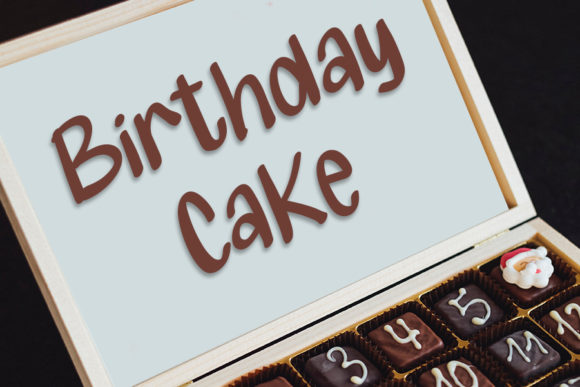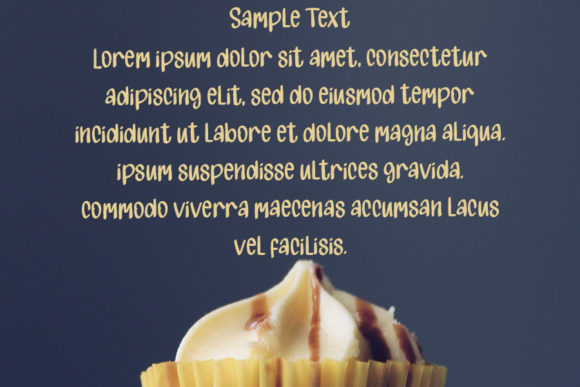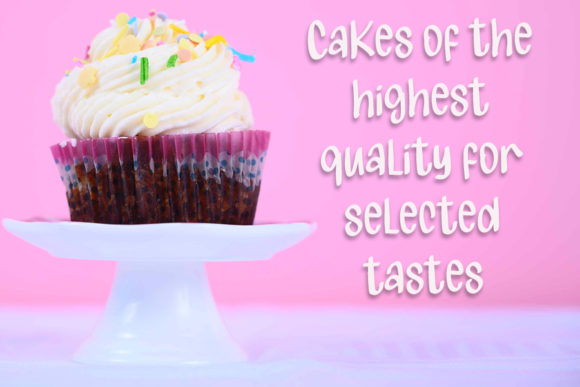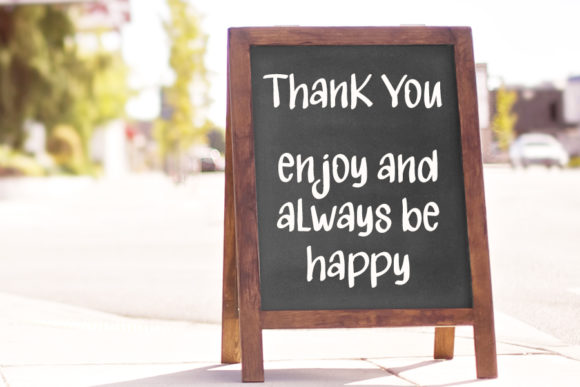
Introduction to King Cake Font
Have you ever stumbled upon a design that transports you to a magical world, making you feel like you’re sipping coffee in a quaint French bakery? That’s exactly the kind of creative moment that the King Cake Font is designed to evoke. This smooth handwritten font is handcrafted to add an authentic feel to your crafts and projects.
As a designer, you’re constantly on the lookout for high-quality design resources that can elevate your work and set it apart from the crowd. The King Cake Font is one such treasure trove, offering a unique and stylish look that’s perfect for T-shirt designs, logos, business cards, posters, flyers, and more.
Key Features of King Cake Font
- High-quality, bold, and playful design ideal for creative projects, especially during Mardi Gras and carnival celebrations.
- Includes a transparent background for easy customization and integration into various design resources.
- Unique characteristics: decorative flourishes and intricate details that evoke the spirit of traditional King Cake designs.
Honest Review: King Cake Font
As a designer, I’m always on the lookout for unique and creative design resources. The King Cake Font caught my eye, and I was excited to dive in and see what it had to offer. One of the standout features of this font is its playful and festive vibe, making it perfect for projects that need a little extra flair. ✨
The font itself is a high-quality download, with a transparent background that makes it easy to work with in any design application. I appreciated the clean and modern design of the font, which is perfect for a variety of creative projects.
Here are some of the key features that I liked about the King Cake Font:
- High-quality download with transparent background
- Perfect for creative projects that need a playful touch
That being said, there are a few limitations to consider:
- May not be suitable for projects that require a more serious or formal tone
- Limited font styles and weights, which may limit its versatility
- Not ideal for projects that require a lot of bold or dramatic typography
Overall, I was impressed with the King Cake Font and its potential for adding a playful touch to creative projects. While it may not be suitable for every project, it’s a great resource to have in your design arsenal. ⚠️
The King Cake Font is a high-quality design resource that offers a unique and festive touch to any creative project. With its transparent background, this font is perfect for adding a pop of color and style to your designs.
Tips for Getting the Most Out of King Cake Font
To get the most out of the King Cake Font, try using it in bold and italics to add emphasis to your designs. You can also experiment with different font sizes and colors to create a unique look.
Common Use Cases for King Cake Font
The King Cake Font is perfect for:
- Celebratory designs, such as birthday invitations and party decorations.
- Holiday-themed designs, such as Christmas and Halloween decorations.
- Food-related designs, such as bakery logos and restaurant menus.